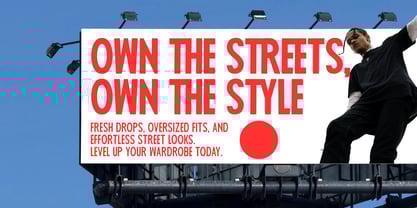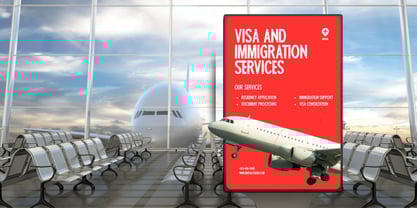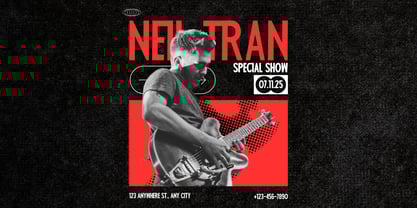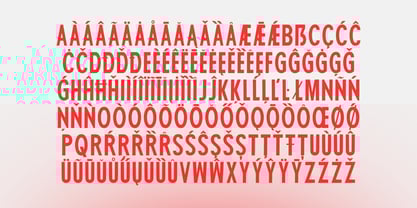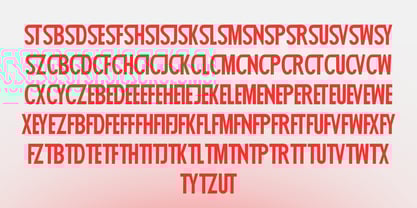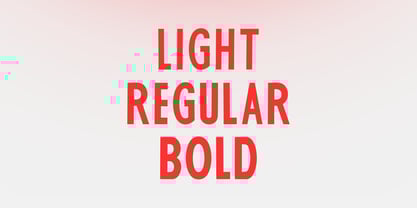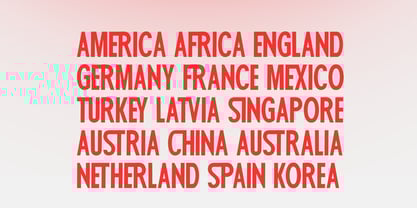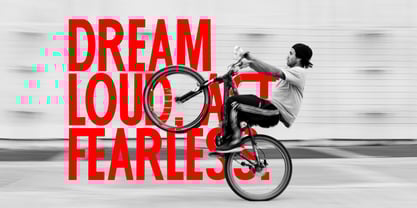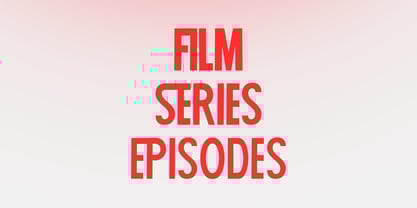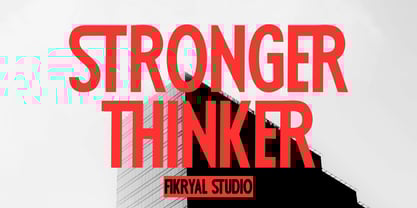
Stronger Thinker
by Fikryal
The Stronger Thinker Font Family was designed by Muhammad Fikry and published by Fikryal. Stronger Thinker contains 3 styles and family package options. More about this family
Stronger Thinker is a bold, modern all‑caps condensed font designed to deliver strength, clarity, and confidence in every composition. Built for impactful visual communication, this typeface is perfect for designers who want a powerful, intelligent, and contemporary look. With its tall proportions and tight spacing, Stronger Thinker excels in headlines, posters, branding, logos, editorial layouts, packaging, apparel, and digital content. The condensed structure allows you to fit more text into limited space while maintaining excellent readability and a commanding presence. Stronger Thinker comes in three carefully crafted weights — Light, Regular, and Bold, giving you flexibility to create visual hierarchy without losing consistency. Every character is designed in ALL CAPS, making it ideal for assertive statements, strong brand identities, and modern typographic systems. What sets Stronger Thinker apart is its rich ligature system. Each all‑caps character includes multiple ligature combinations, allowing letters to connect naturally and dynamically. These ligatures add uniqueness, flow, and a custom‑made feel to your typography, making your designs stand out effortlessly. Whether you are working on branding, fashion, architecture, technology, sports, or editorial projects, Stronger Thinker delivers a clean, confident, and professional aesthetic. Font Features Condensed all‑caps typeface 3 weights: Light, Regular, Bold Extensive ligatures for all‑caps characters Strong, modern, and assertive design Ideal for headlines, logos, posters, branding, packaging, apparel, and digital use Clean geometry with powerful visual impact Perfect For Branding & visual identity Logo design Posters & advertising Editorial & magazine layouts Apparel & merchandise Social media & digital graphics Architecture, tech, sport, and modern design themes If you have any questions please don’t hesitate to contact me follow my Instagram: fkryall Thank you